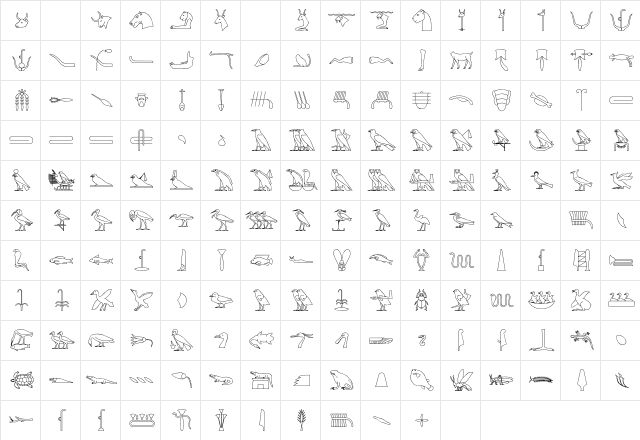
GlyphBasic2 Regular
Design Context for GlyphBasic2 Typeface
GlyphBasic2 offers clean, dependable letterforms without strong stylistic allegiance, making it a practical choice for designers who need flexibility.